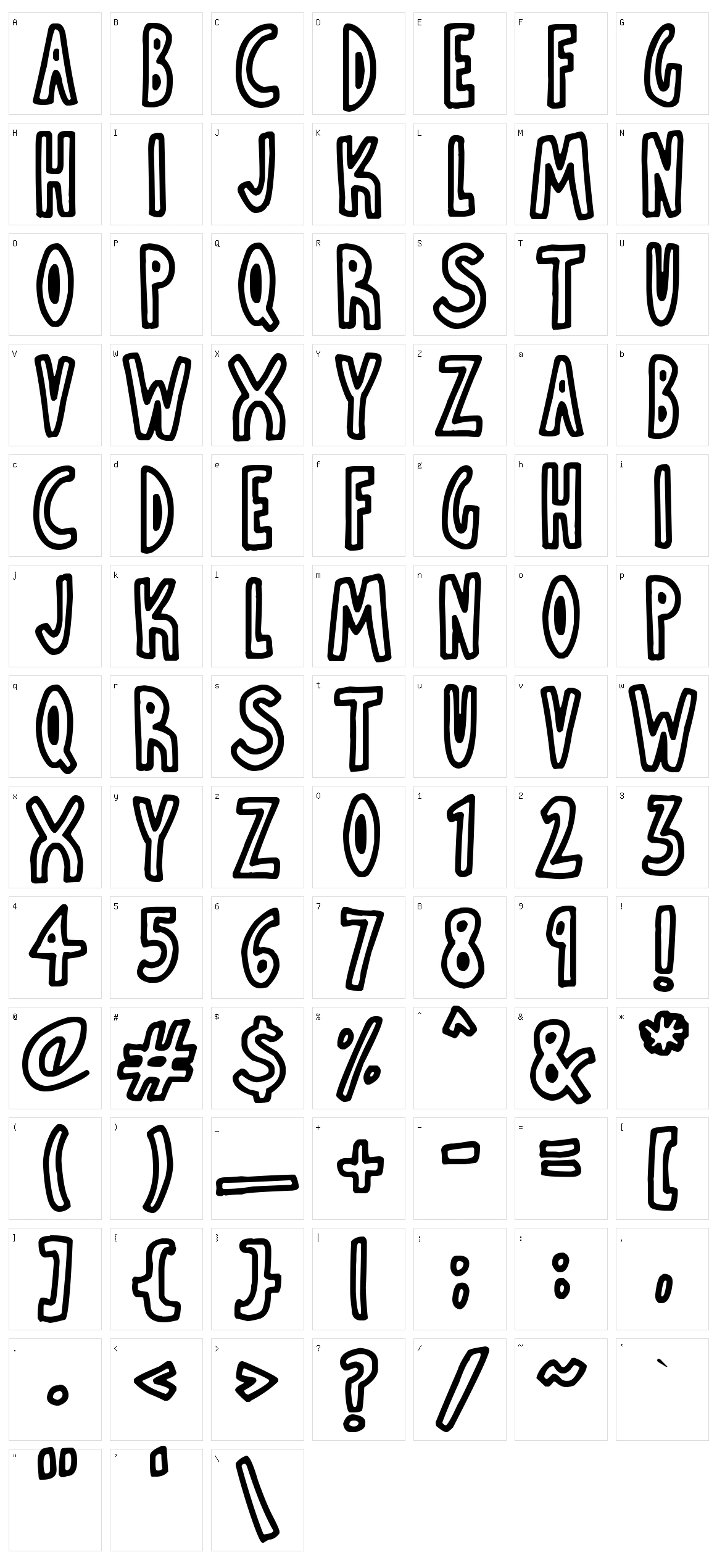
The free font Thin Toon Outlines is carefully designed by Hawtpixel, showcasing a thoughtful balance of creativity and usability and falls under the Cartoon font style. When you download the ZIP file, it contains only 92.56 KB of font files, making it lightweight and quick to download. Please review the license details below to understand permitted usage and distribution rights. If license information is not available, we recommend using this font for personal projects only or contacting the author directly for commercial usage permissions.